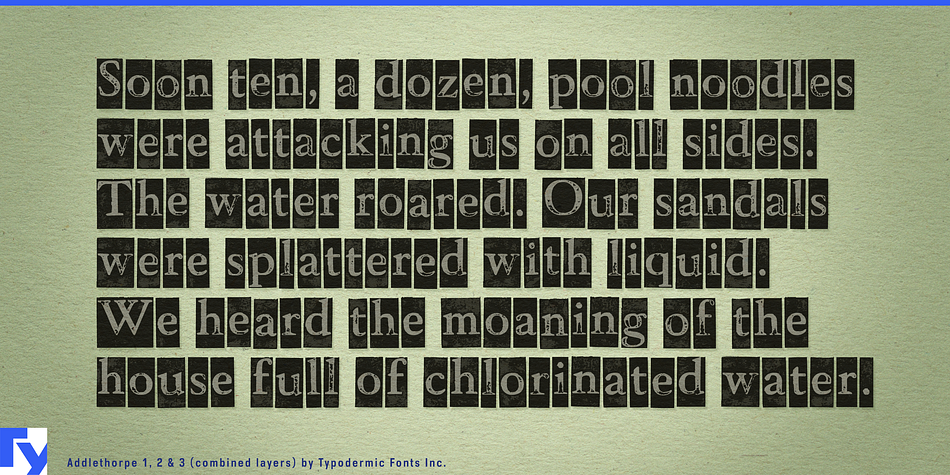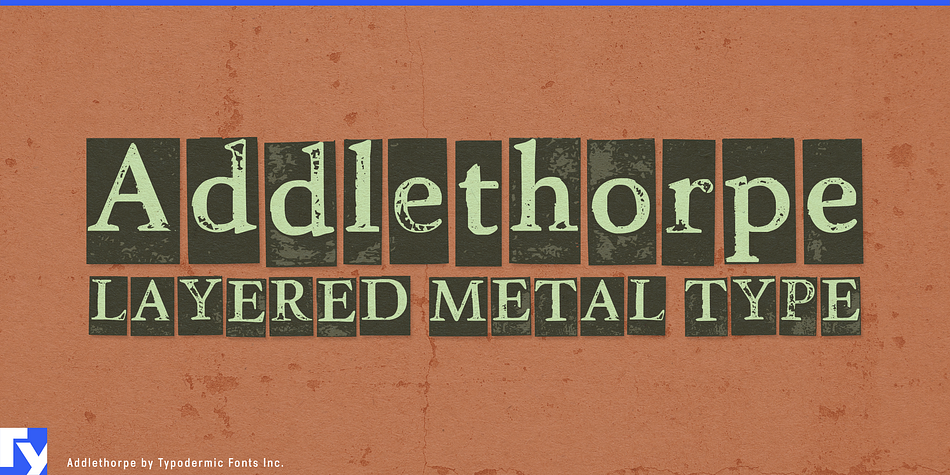
Addlethorpe
Addlethorpe is a grunge and novelty font family. This typeface has three styles and was published by Typodermic Fonts Inc.
Introducing Addlethorpe, the sleek and sophisticated three-layer metal typeface that will elevate your designs to the next level. With its unique combination of foreground, fill, and background layers, Addlethorpe offers endless possibilities for customization and creativity.
Whether you’re designing for print or digital, Addlethorpe has you covered. The foreground layer, Addlethorpe 1, is perfect for use on light backgrounds, offering intricate detail that will catch the eye and draw the viewer in. But why stop there? Addlethorpe 2 is the perfect fill layer, allowing you to add color and depth to your elevated letters.
And don’t forget about Addlethorpe 3, the rectangular background layer that fills in the blanks and ties your design together. With its clean lines and bold presence, Addlethorpe 3 is the perfect finishing touch.
But Addlethorpe is more than just a pretty face. OpenType-aware programs allow for the use of lining or old-style numerals, while letter pair ligatures break up the monotony of repeated letters. And with Addlethorpe Web, you can enjoy all of this beauty and versatility with faster load times and simpler forms.
So what are you waiting for? Give your designs the edge they deserve with Addlethorpe. Just be patient with your application – with all this detail and customization, it’s worth taking the time to get it right.